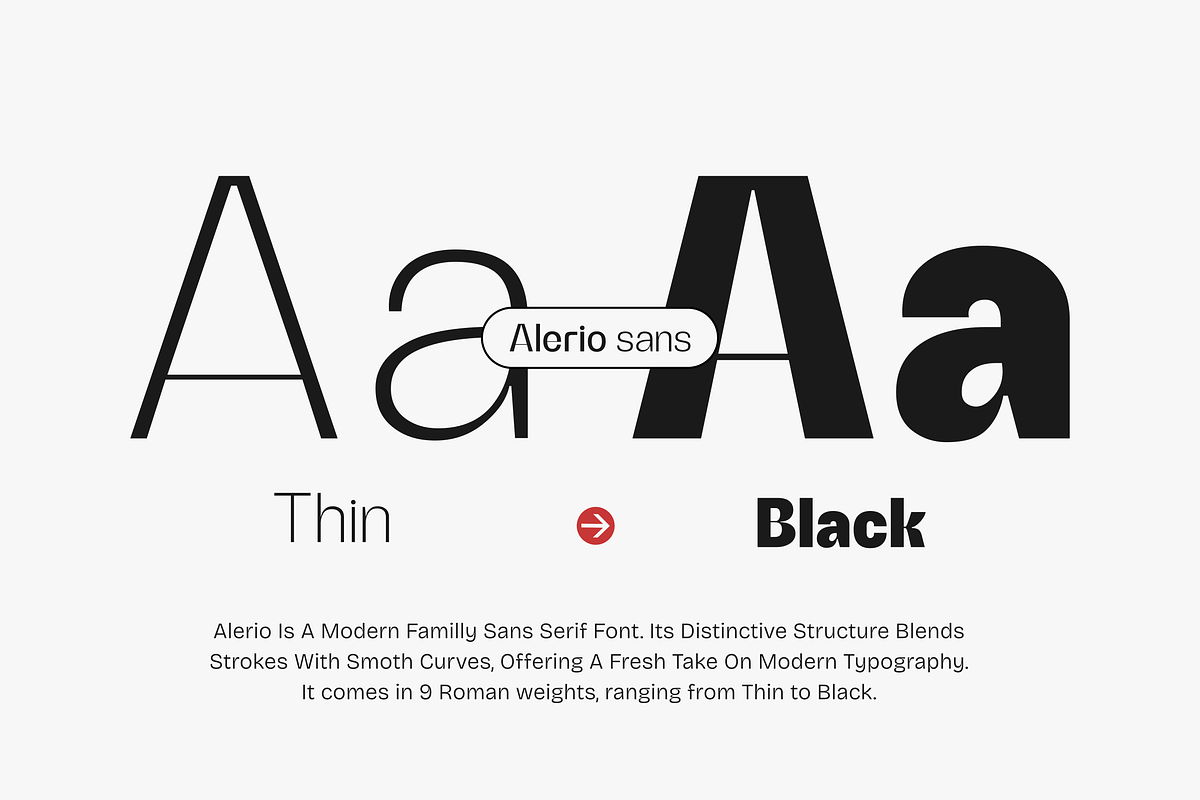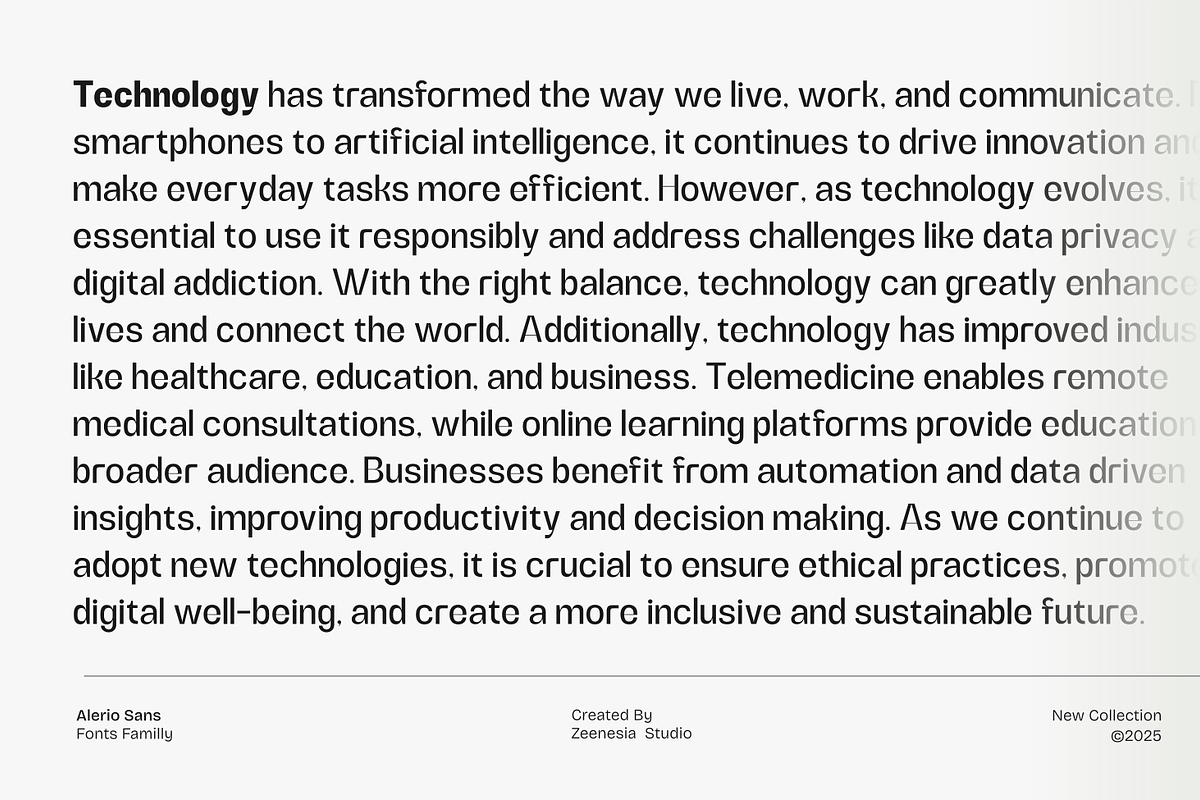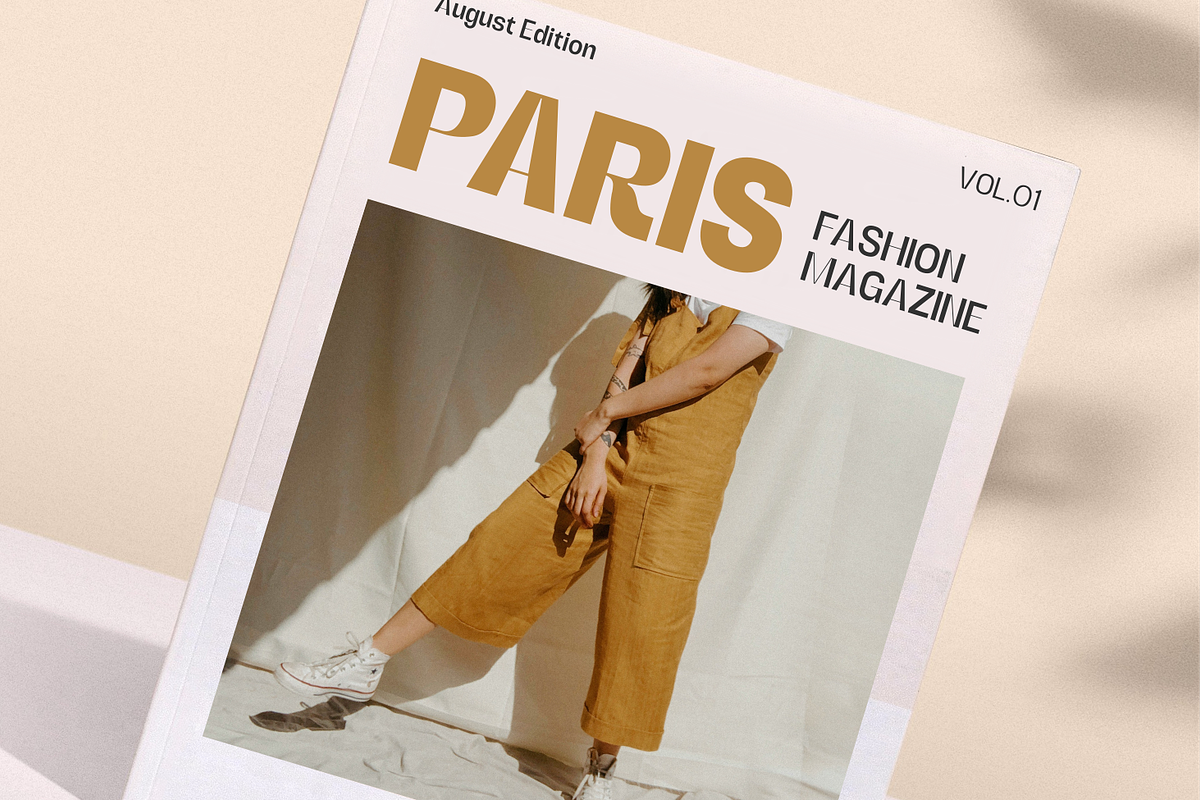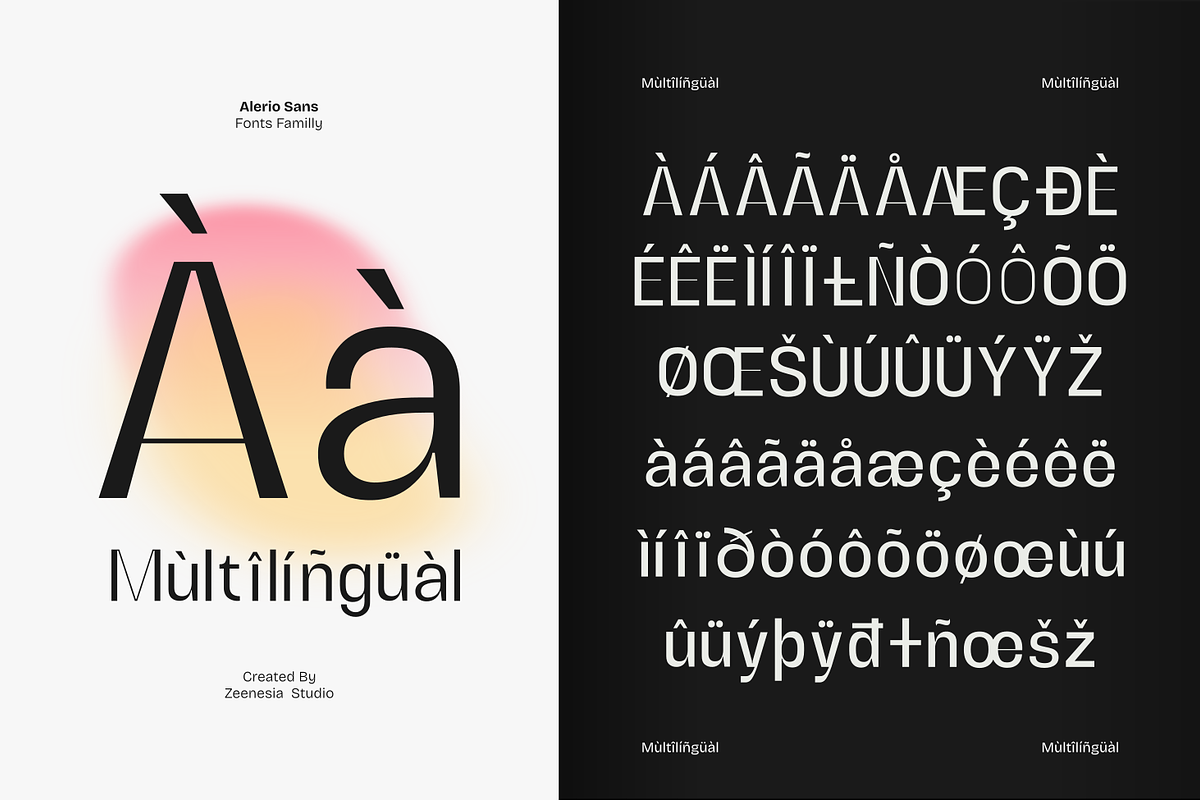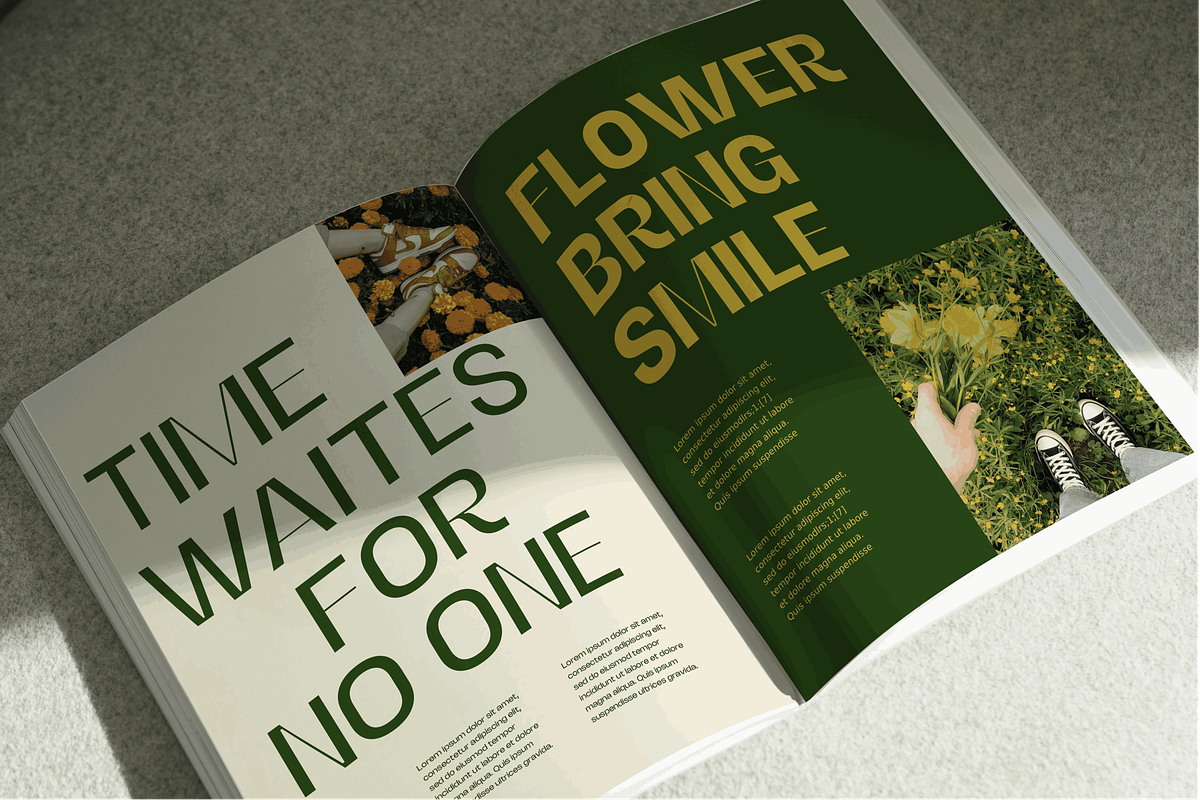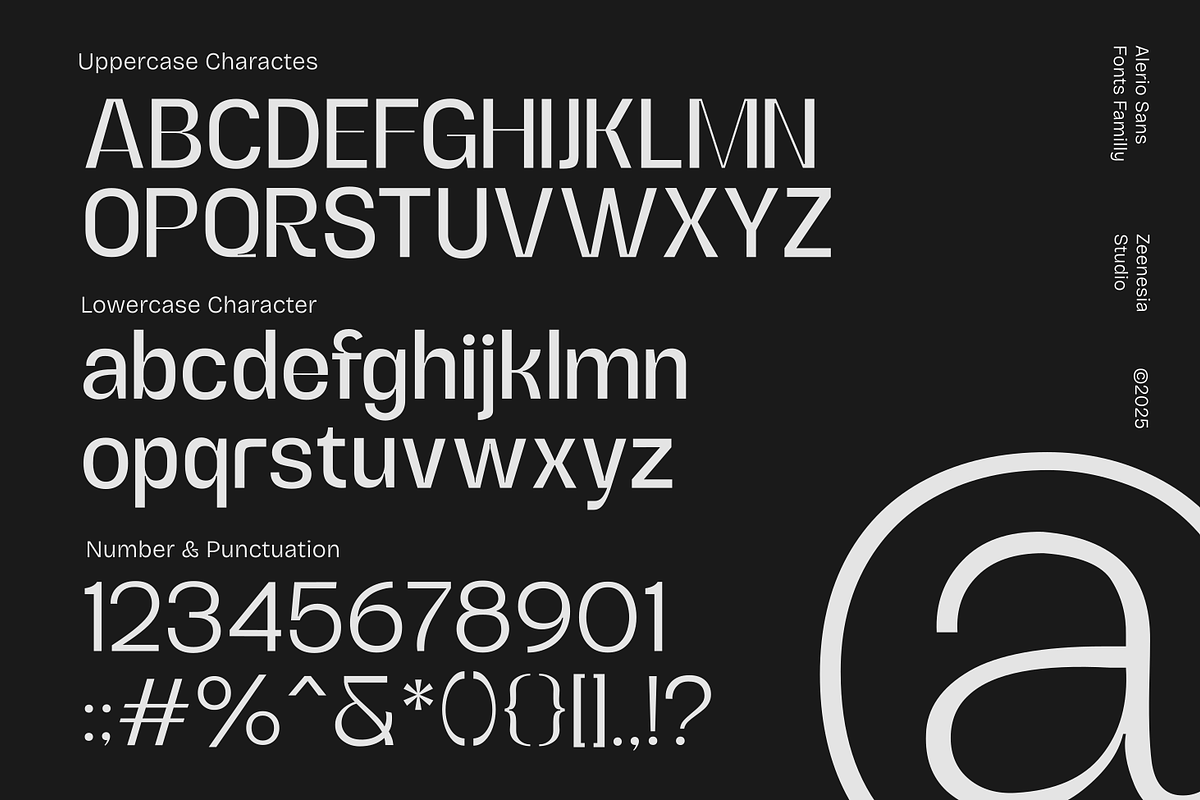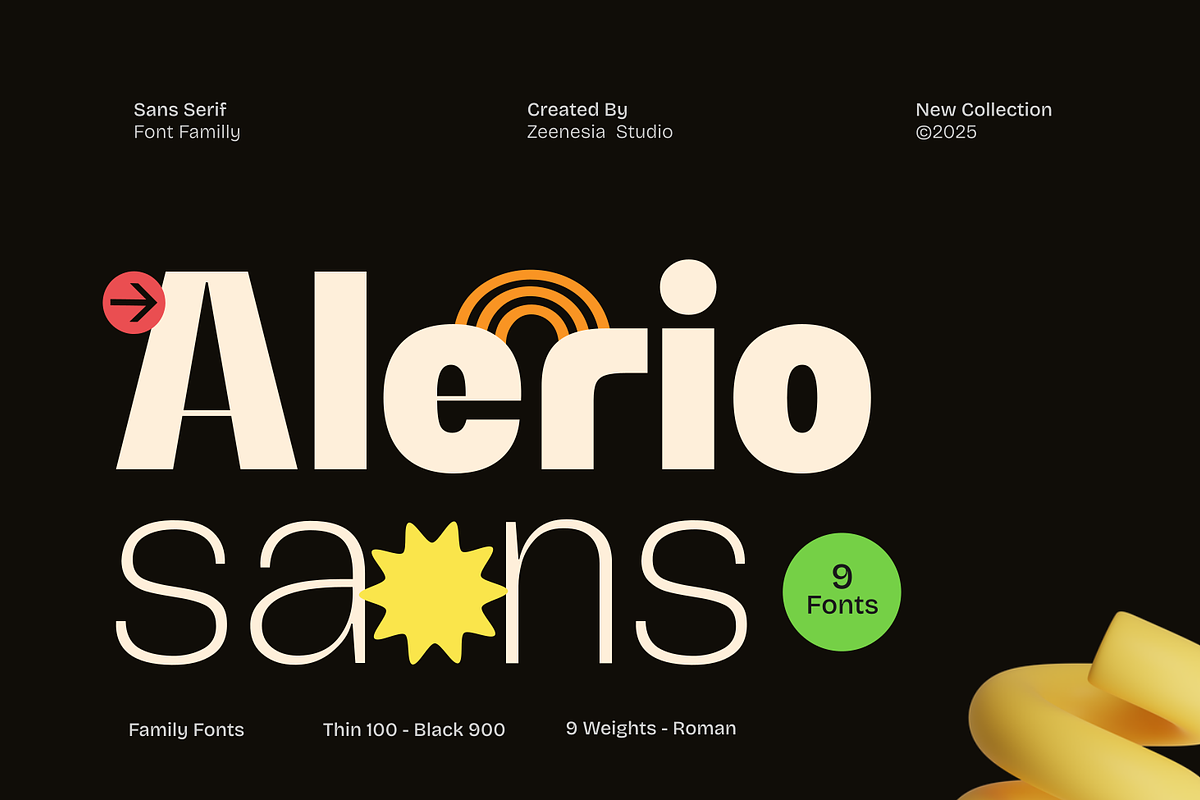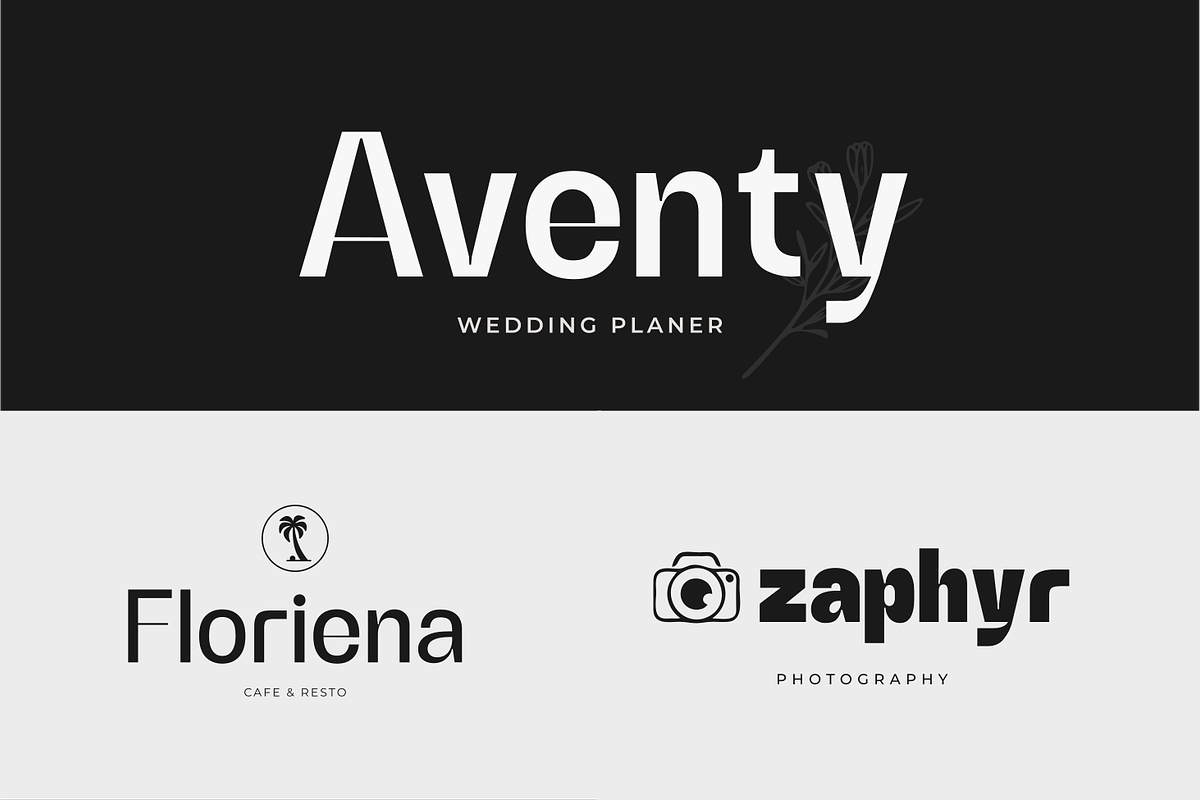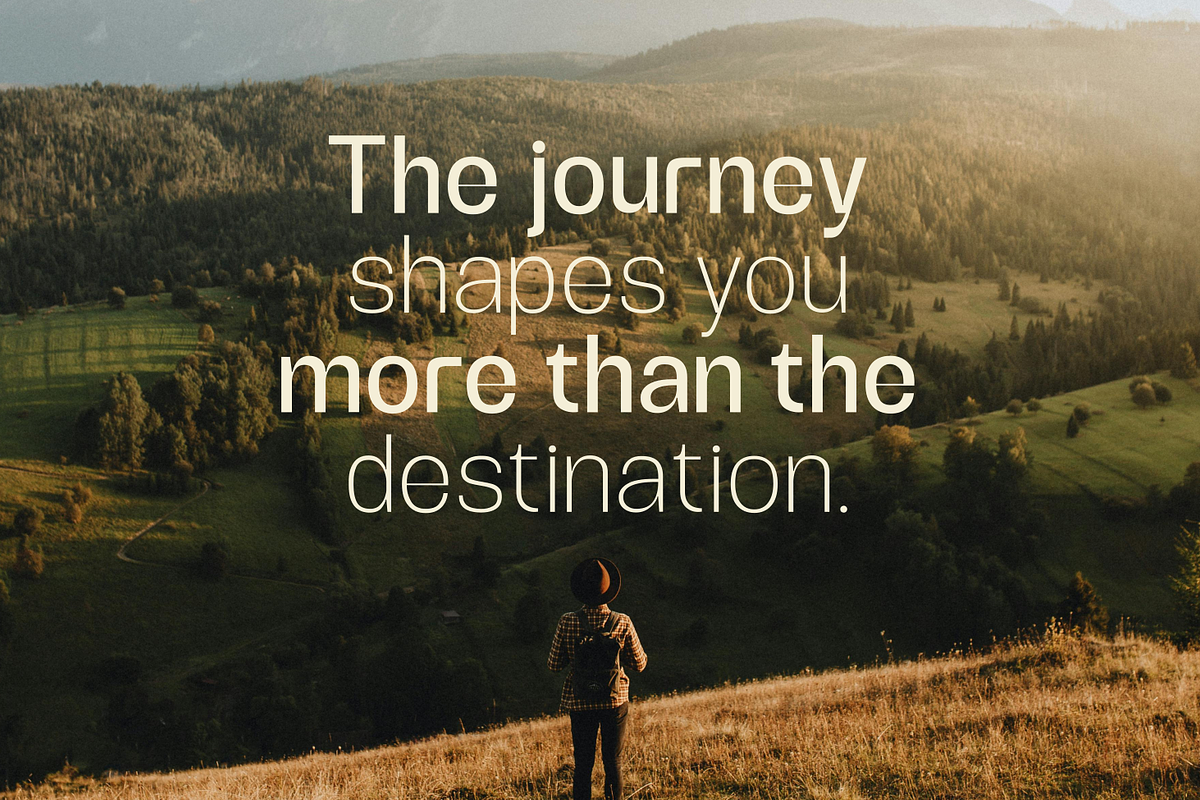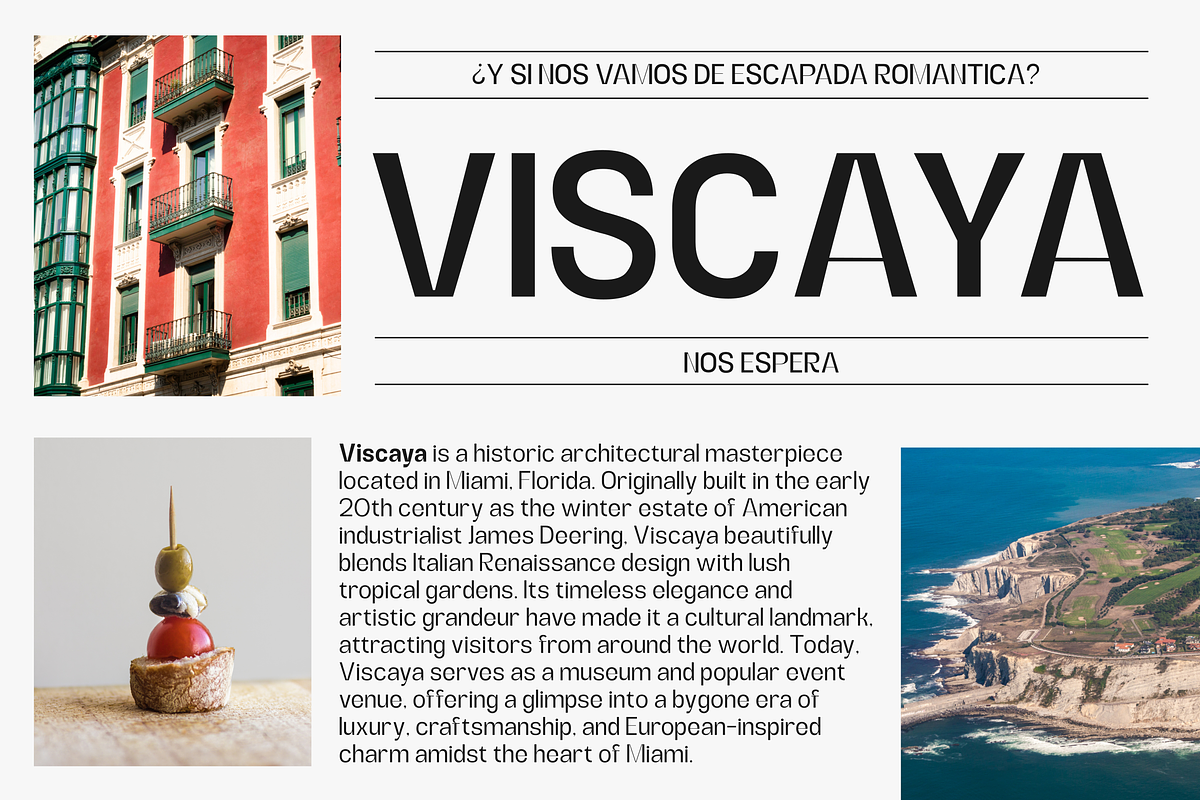
Alerio Sans
Alerio is a refined Roman typeface that blends timeless elegance with contemporary versatility. Designed with precision and grace, Alerio comes in 9 meticulously crafted weights — from the delicate Thin (100) to the commanding Black (900) — making it a perfect choice for both editorial needs.
Its classic Roman structure offers high readability, while the range of weights gives designers full freedom to express tone and hierarchy. Whether you're working on luxurious packaging, elegant headlines, or sophisticated body text, Alerio delivers with style and confidence. With its balanced proportions, subtle contrast, and smooth curves, Alerio is not just a typeface — it's a statement of style and refinement.